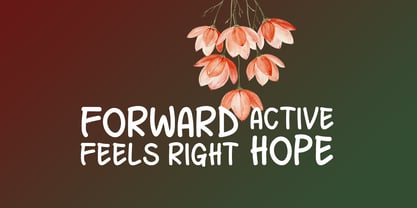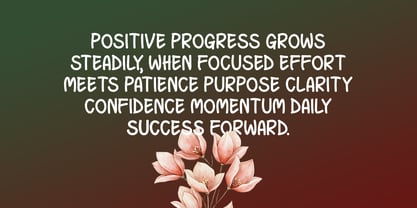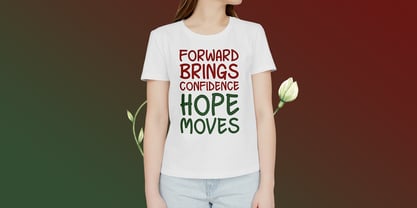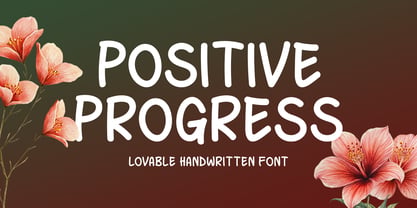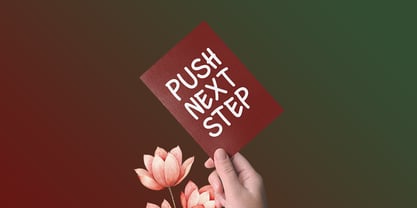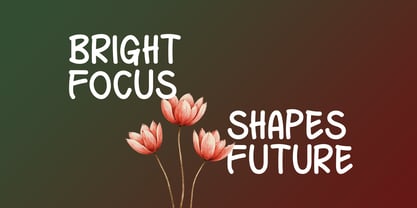
Positive Progress
von Seemly Fonts
Die Schriftfamilie Positive Progress wurde von Md. Sohail Bhuiyan entworfen und von Seemly Fonts veröffentlicht. Positive Progress enthält 1 Stile. Mehr über diese Familie
Positive Progress is a lovable handwritten typeface designed to bring clarity and positivity to your work. With its relaxed flow and easy readability, it works beautifully across print and digital media such as branding, apparel, music covers, photo frames, social posts, and promotional layouts. This font helps messages feel genuine, encouraging, and full of charm.
Designer: Md. Sohail Bhuiyan
Aktuelle Foundry: Seemly Fonts